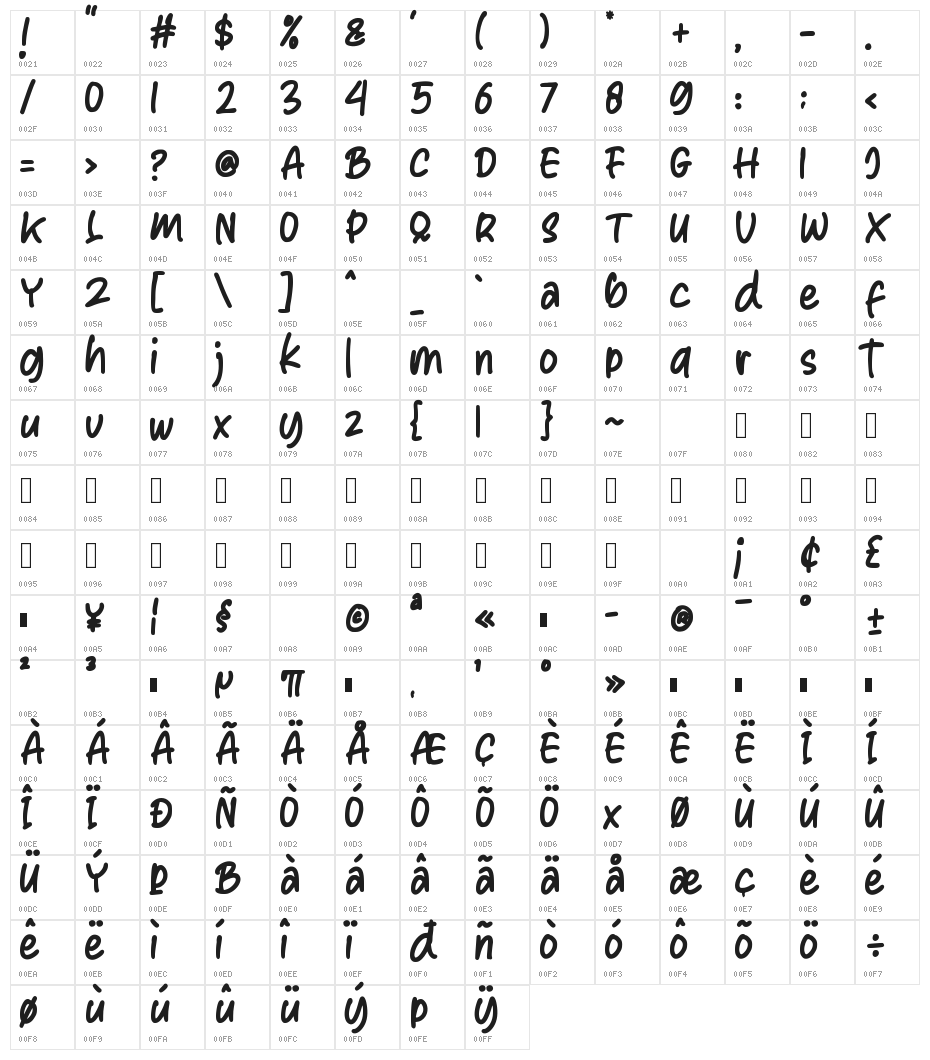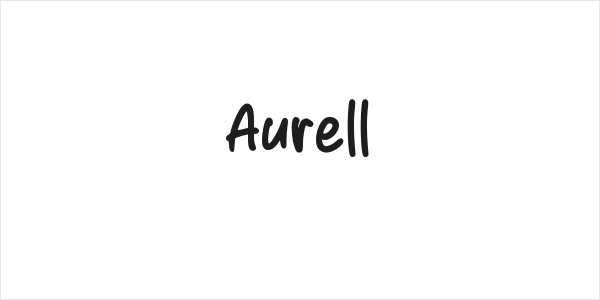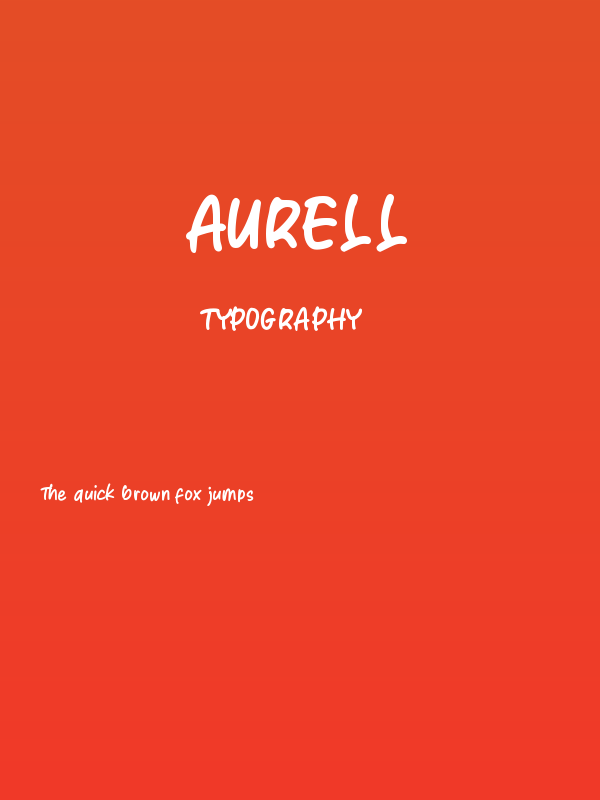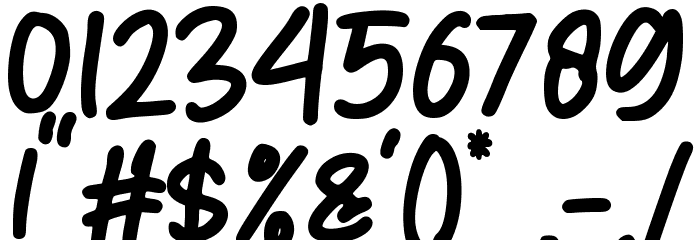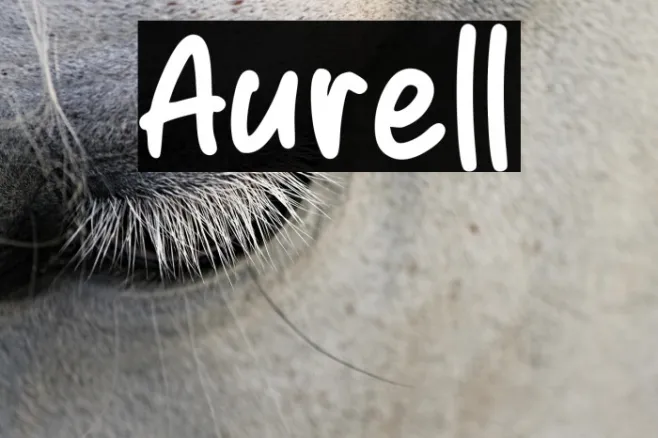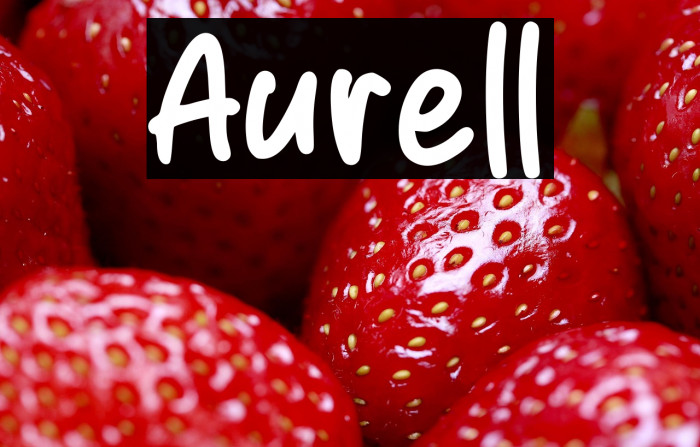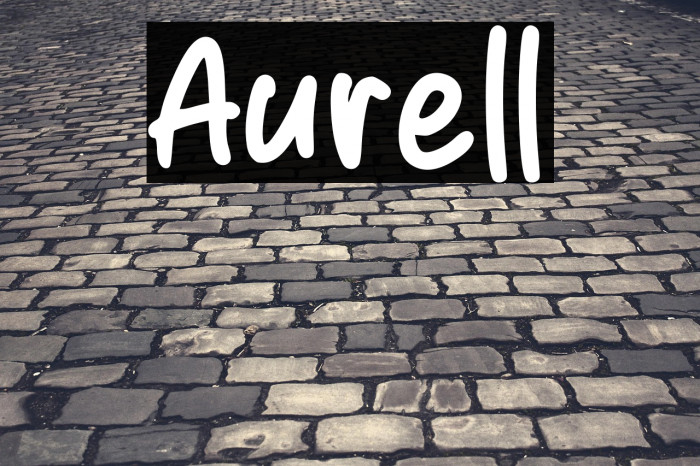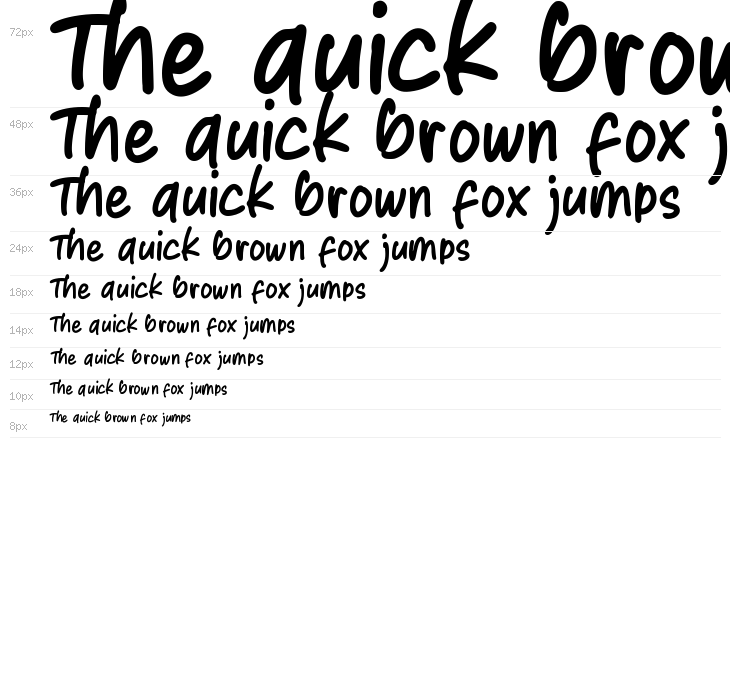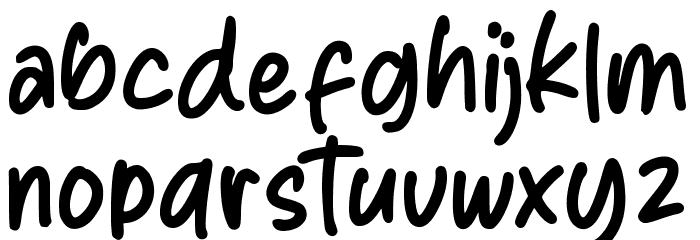
Aurell Font
Aurell Description
This font exudes a playful and energetic vibe, characterized by its bold, rounded strokes and slightly irregular baseline. The letters are crafted with a handwritten style, giving it a casual and approachable appearance. The uppercase and lowercase letters maintain a consistent flow, with smooth curves and a slight slant that adds to its dynamic feel. The numbers and special characters are equally expressive, ensuring a cohesive look across all elements. This font is perfect for projects that require a personal touch or a fun, informal tone.
| Proposed Projects | Ideal for greeting cards, children's books, playful branding, and social media graphics. |